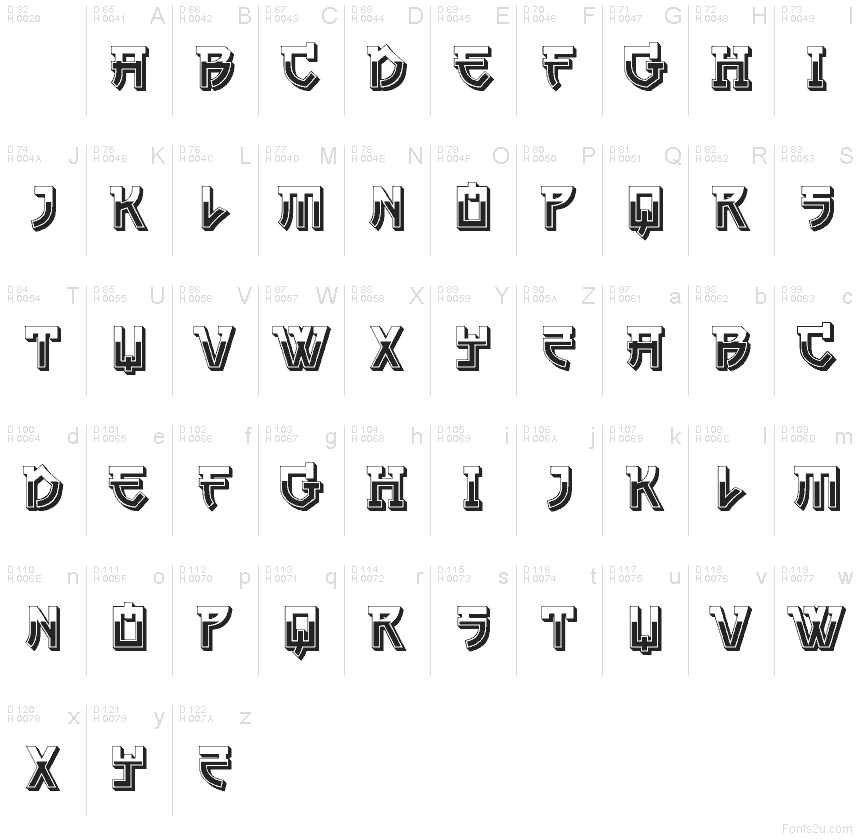
Traditional Pattern Regular
Traditional Pattern font by Vladimir Nikolic is a free decorative faux Chinese typeface in the Traditional family that grabs attention instantly. Bold, blocky letterforms are carved with stepped corners and sharp, brush-like angles, framed by a clean white outline that makes the text feel like cut stone or signage lit under a bright lantern. The rhythm is tight and consistent, so even with all its stylized edges, words remain strong, legible, and striking at a glance.
Using Traditional Pattern, you can give menus, takeaway packaging, restaurant logos, event posters, game titles, YouTube thumbnails, and themed party invitations a clearly East-Asia–inspired headline without getting overly ornate. This free font shines at large sizes where the chunky shapes and inner shadows can really be seen; pair it with a simple sans serif for body copy to keep layouts readable and balanced.